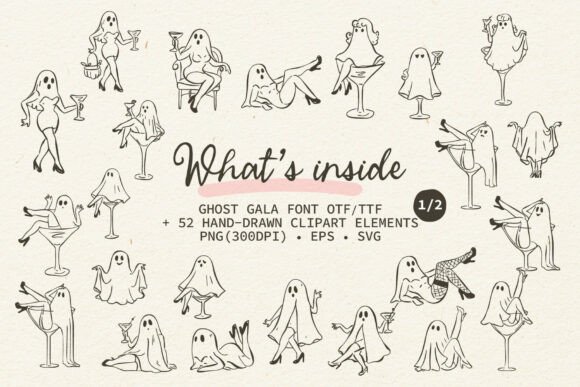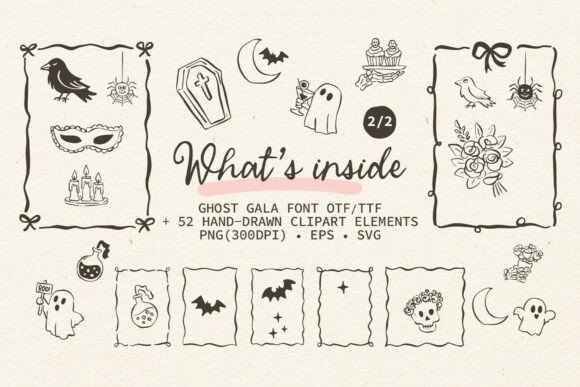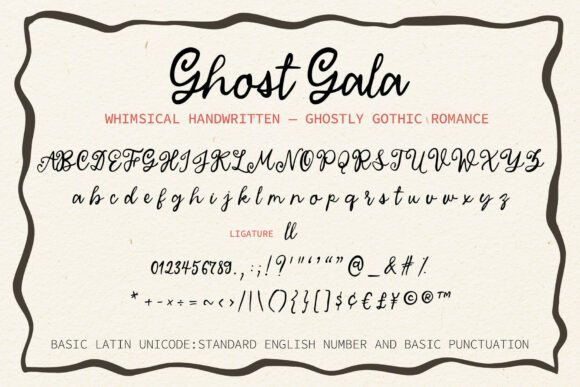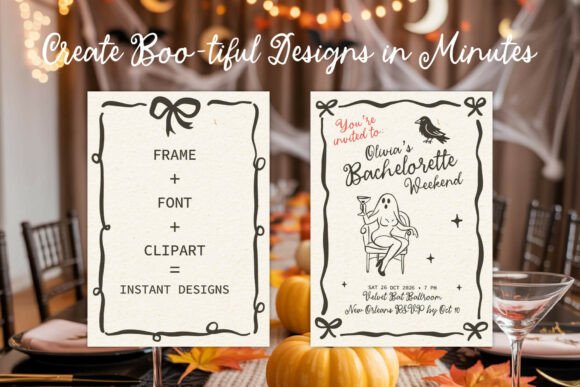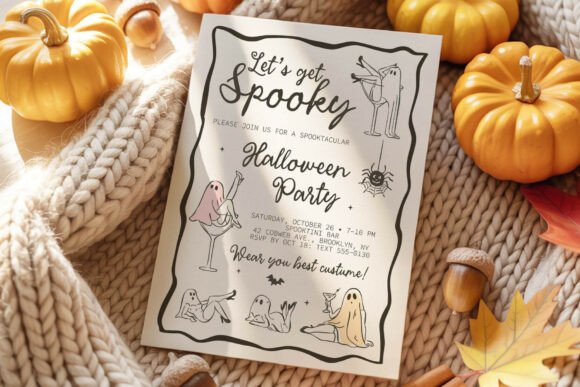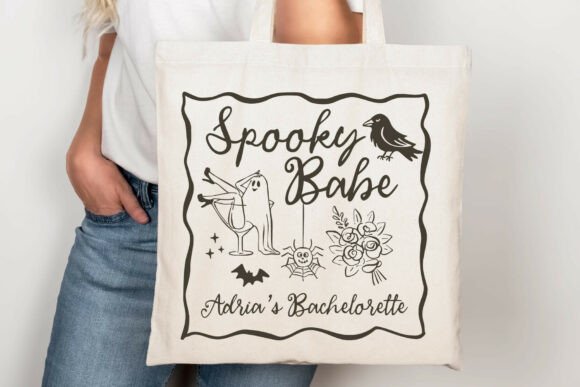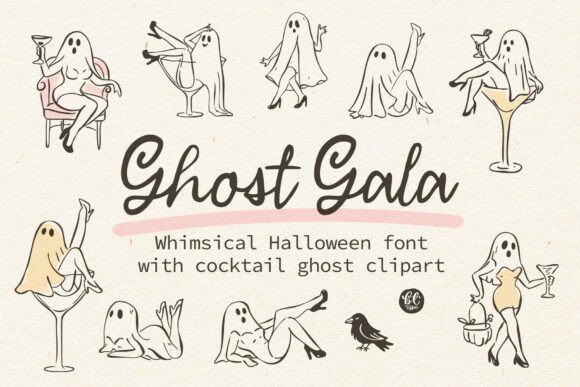
Introducing Ghost Gala Font: A Whimsical Halloween Companion
Are you ready to add a touch of spooky whimsy to your designs and crafts? Look no further than Ghost Gala, a charming Halloween ghost font paired with a matching clipart bundle that’s sure to delight. This fantastic font and clipart combination is perfect for creating eye-catching invitations, menus, tote bags, shirts, stickers, and social posts for Girls’ Night, Bachelorette Halloween parties, and other spooky celebrations.
Meet Ghost Gala Font
Ghost Gala is a unique and playful font that’s designed to capture the spirit of Halloween. With its ghostly charm, this font is sure to add a touch of personality to your designs. Whether you’re creating party invitations, decorations, or promotional materials, Ghost Gala is the perfect choice. Its whimsical design will transport you and your audience to a world of spooky fun and festivities.
The Matching Clipart Bundle
But that’s not all – Ghost Gala comes with a matching clipart bundle that’s packed with cocktail-themed ghosts, including a martini ghost, ghost woman, and ghost in a martini glass. This bundle is perfect for designers and crafters who want to add a touch of personality to their projects. The clipart bundle includes:
Perfect for Various Projects
The Ghost Gala font and clipart bundle are perfect for a wide range of projects, including:
- Party invitations and decorations
- Tote bags and shirts
- Stickers and social posts
- Menus and promotional materials
- Girls’ Night and Bachelorette Halloween parties
Why Choose Ghost Gala?
So why choose Ghost Gala over other font and clipart combinations? Here are just a few reasons:
- Unique and playful design: Ghost Gala is a one-of-a-kind font and clipart combination that’s sure to stand out.
- Easily customizable: The Ghost Gala font and clipart are easily customizable, making it simple to add your own personal touch.